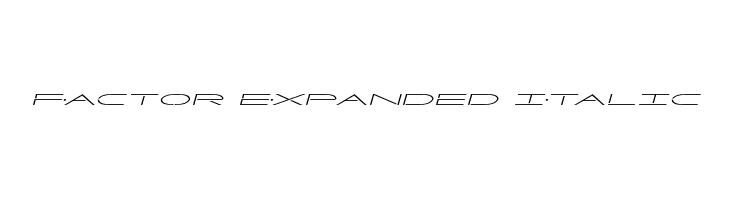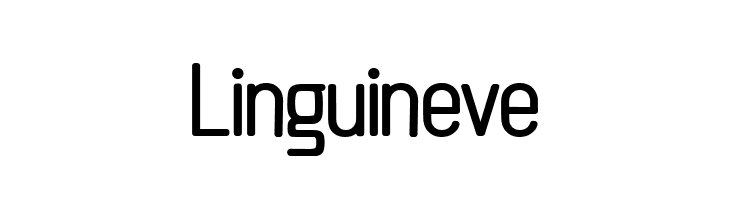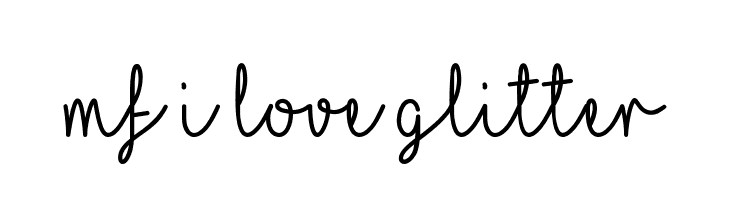
A futuristic, expanded italic font with sleek, elongated characters.
A bold, italicized font with a halftone effect, offering a futuristic and dynamic style.
( Fonts by Scratchones )
A playful, bold font with rounded edges and a whimsical style.
( Fonts by Tom Raaijmakers )
An edgy, barbed wire-inspired font with sharp, angular lines.
A bold, italicized font with a futuristic and angular design.
A lively and elegant script font with flowing, cursive letterforms.
A bold, expressive script font with flowing, cursive letterforms.
A bold, condensed font with jagged edges, ideal for horror-themed designs.
( Fonts by Manfred Klein - manfred-klein.ina-mar.com )
A modern, geometric font with sharp lines and subtle curves.
( Fonts by Maelle.K - Thomas Boucherie )
A playful, whimsical script font with fluid, interconnected strokes.